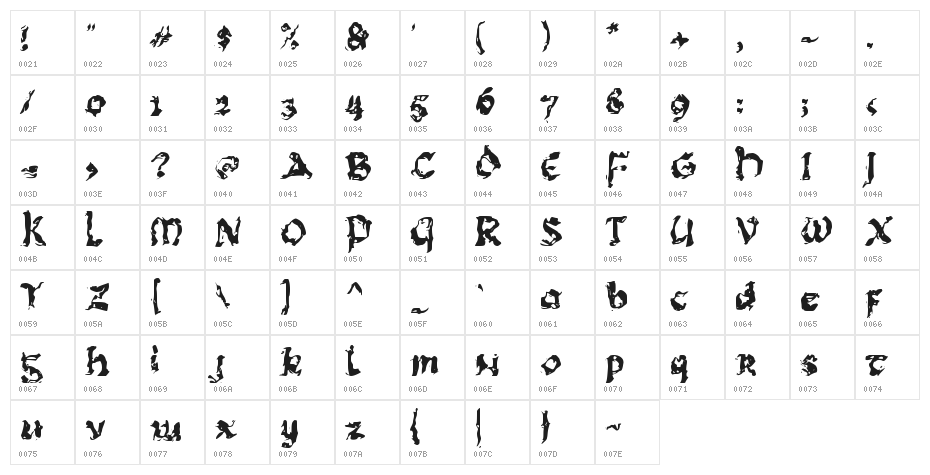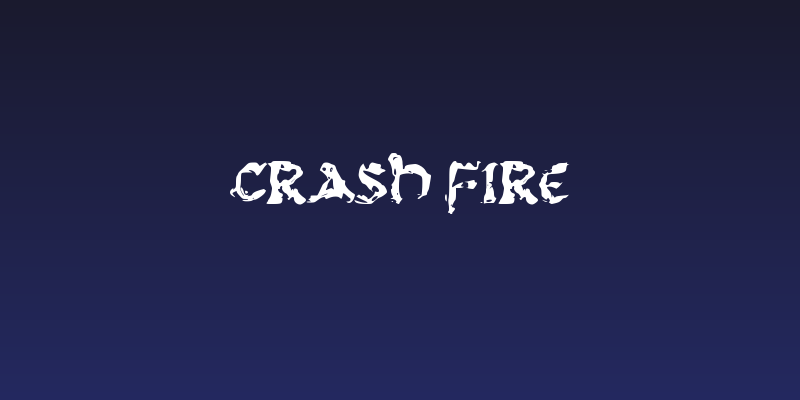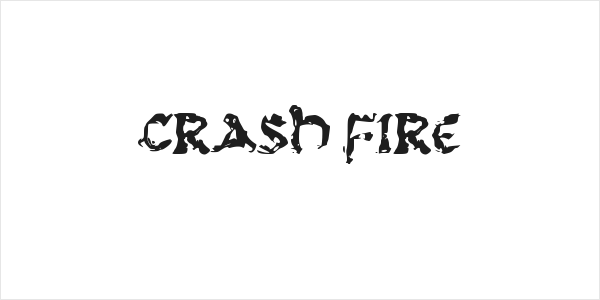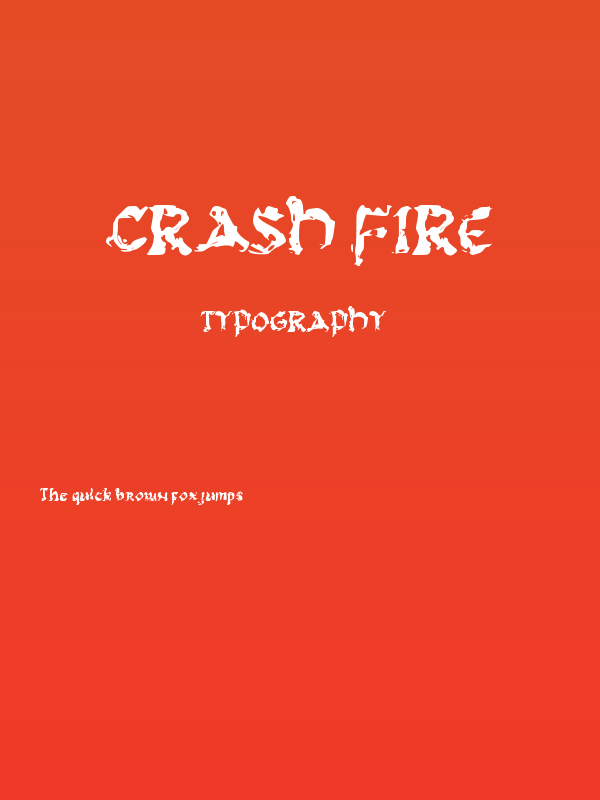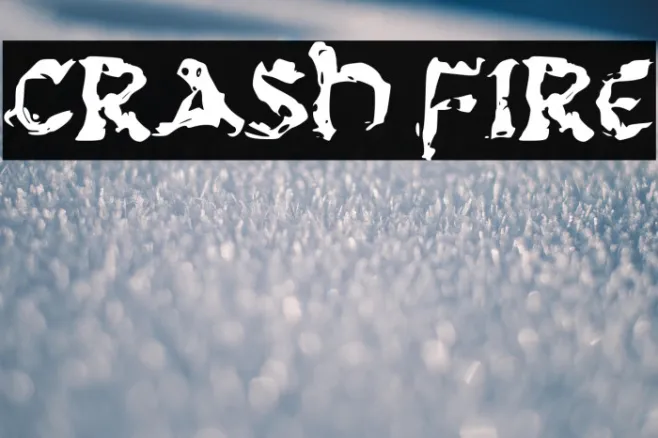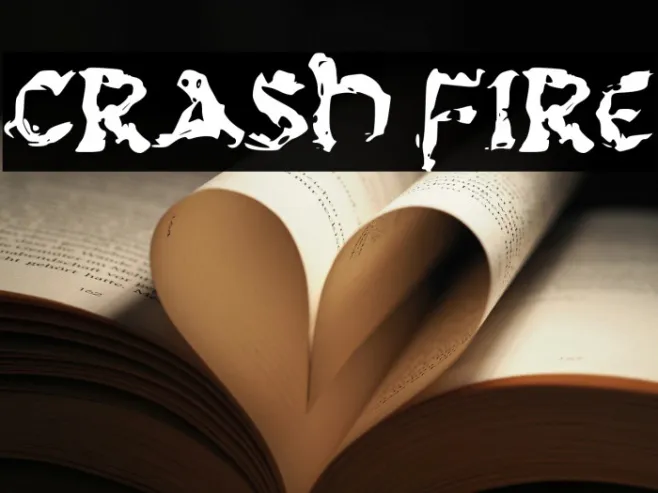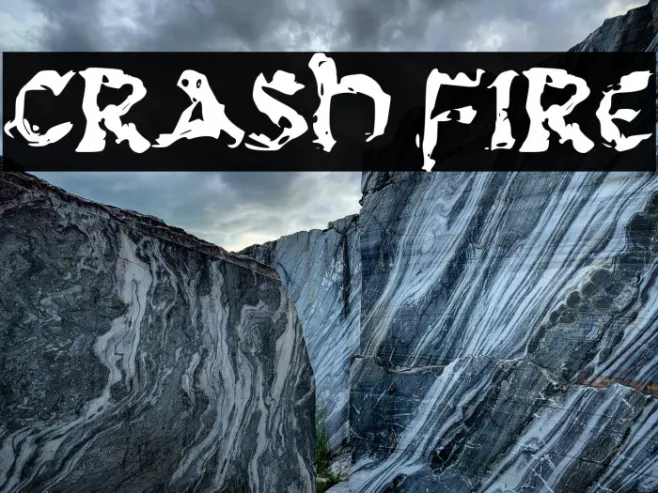
CRASH FIRE Font
CRASH FIRE Description
This font exhibits a bold and fiery design, with each character appearing as if it's engulfed in flames or smoke. The strokes are irregular and jagged, giving a sense of chaos and intensity. The uppercase and lowercase letters maintain a consistent style, with dramatic curves and sharp edges. Numbers and special characters follow the same aesthetic, enhancing the overall theme of destruction and energy. The font's unique appearance makes it stand out, ideal for projects that require a strong visual impact.
| Proposed Projects | Ideal for use in posters, album covers, video game titles, or any project needing a dramatic and intense visual style. |